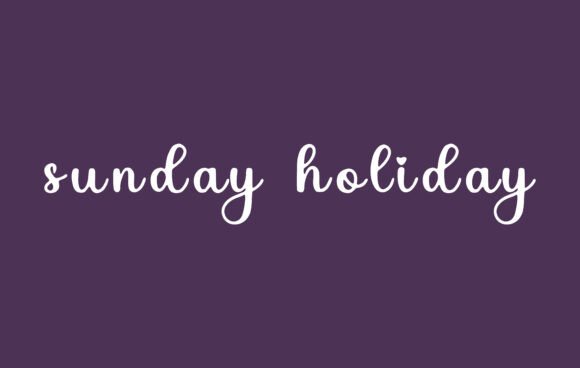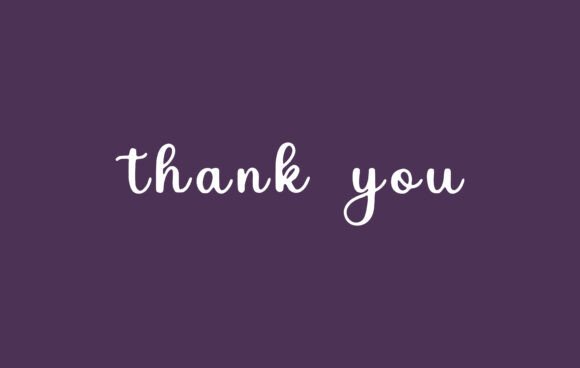
Introduction to Metronome Font
As designers, we’ve all been there – staring at a blank page, trying to bring our creative vision to life. The blank slate can be both exhilarating and intimidating, but it’s in these moments that we often discover our most innovative ideas. And what better way to start a new project than with a font that exudes romance and elegance? Enter the Metronome Font, a beautifully crafted handwritten font that’s sure to be a design favorite.
With its high-quality design and transparent background, the Metronome Font is the perfect addition to any creative project. Whether you’re working on a magazine headline, social media campaign, or wedding invitation, this font is sure to bring a touch of sophistication and whimsy to your design. And the best part? It’s available for free download, making it an invaluable resource for designers of all levels.
As a design resource, the Metronome Font offers endless possibilities for creative expression. Its unique, handwritten style is not only visually striking but also incredibly versatile, making it perfect for a wide range of applications. From branding to social media, this font is sure to elevate your designs and leave a lasting impression on your audience.
Key Features of Metronome Font
- High-quality typography with a modern and sleek design, perfect for creative projects.
- Transparent background option, allowing for seamless integration with any design or background.
- Designed with a high resolution of 300 DPI, ensuring crisp and clear typography even at larger sizes.
- Perfect for use in digital design, branding, and advertising, thanks to its clean and sophisticated aesthetic.
Honest Review: Metronome Font
As a designer, I’m always on the lookout for high-quality design resources to enhance my creative projects. The Metronome Font is one such resource that caught my attention. In this review, I’ll share my honest thoughts on what works well and what doesn’t.
- High-quality design: The Metronome Font boasts a clean and modern design that’s perfect for a wide range of creative projects.
- Transparent background: The font’s transparent background makes it easy to use as a design element in creative projects, allowing for a seamless integration with other design elements.
- Limited customization options: While the font is high-quality, it doesn’t offer a wide range of customization options, which may limit its use in more complex design projects.
- Not suitable for all designs: The font’s modern design may not be suitable for all types of creative projects, particularly those with a more traditional or vintage aesthetic.
Overall, the Metronome Font is a great design resource for designers who want a high-quality, modern font for their creative projects. While it has some limitations, it’s a great addition to any design library, and its free download makes it an excellent value for designers on a budget.
Tips for Getting the Most Out of Metronome Font
Use the Metronome Font with a transparent background to create a clean and modern design. Experiment with different font sizes and colors to add visual interest to your project.
The Metronome Font is perfect for creative projects such as logos, business cards, and social media graphics. It’s also great for academic and professional presentations, reports, and documents.